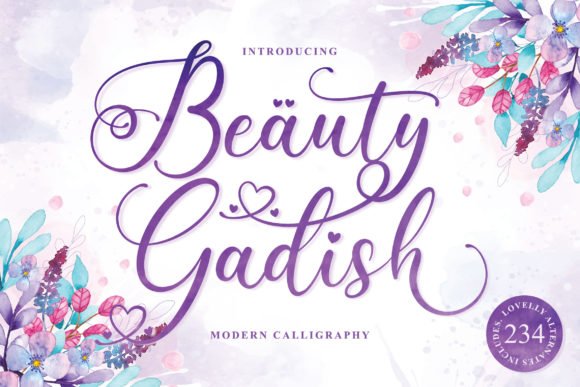
Unleashing the Magic of Beauty Gadish Font
There’s something special about discovering a font that speaks to your creative soul. The moment you stumble upon the perfect script, everything else fades away, and your imagination takes over. For me, that moment happened when I first laid eyes on the Beauty Gadish Font.
This lovely script font is more than just a pretty face – it’s a game-changer for designers looking to add a touch of luxury to their projects. With its beautiful swashes and elegant lines, Beauty Gadish Font is the perfect addition to any design. Whether you’re working on a wedding invitation, a branding project, or a blog post, this font is sure to elevate your design to the next level.
Beauty Gadish Font Key Features
- Font Family: Beauty Gadish
- Font Styles: Available in Regular and Bold
- Unique Characteristics: Hand-drawn design with a modern, elegant feel and a wide range of language support
Beauty Gadish Font Review
Overall, I think the Beauty Gadish Font is a great choice for designers who want to add a touch of elegance to their projects. ✨ The font’s unique blend of modern and vintage elements makes it a great fit for a wide range of designs, from fashion and beauty to home decor and lifestyle.
Here are some of the things that work well with the Beauty Gadish Font:
- ✨ Elegant and sophisticated feel: The font’s flowing lines and subtle flair make it perfect for adding a touch of luxury to your designs.
- ✨ Versatile: Whether you’re working on a fashion blog, a beauty product label, or a home decor brochure, the Beauty Gadish Font is a great choice.
- ✨ Easy to read: The font is clear and easy to read, making it a great choice for body text or headlines.
- ⚠️ Limited character set: While the font includes a wide range of characters, it’s not as comprehensive as some other fonts.
- ⚠️ May not be suitable for small text: Due to its elegant and flowing design, the Beauty Gadish Font may not be the best choice for small text or fine print.
Overall, I think the Beauty Gadish Font is a great addition to any designer’s toolkit. While it may have a few limitations, its unique blend of modern and vintage elements makes it a great choice for a wide range of designs.
For the most out of Beauty Gadish Font, use it for creative and artistic designs, such as fashion branding, beauty product labels, or wedding invitations. You can also use it for headings and titles to add a touch of elegance and sophistication to your designs. Experiment with different font sizes, colors, and styles to create unique and eye-catching designs.
Alternatives to Beauty Gadish Font
Great Vibes is a modern script font perfect for creating a playful and elegant look. It’s ideal for use in invitations, quotes, and other creative projects. Great Vibes has a more refined and polished look compared to Beauty Gadish Font, which can make it a better choice for professional designs.
Comparison: Great Vibes has a more elegant and refined look, while Beauty Gadish Font has a more casual and playful feel.
Carolyna Pro is a sophisticated and elegant script font suitable for high-end designs. It’s perfect for use in luxury branding, fashion, and editorial projects. Carolyna Pro has a more refined and sophisticated look compared to Beauty Gadish Font, which can make it a better choice for premium designs.
Comparison: Carolyna Pro has a more refined and sophisticated look, while Beauty Gadish Font has a more casual and playful feel.
Alex Brush is a beautiful and elegant script font perfect for creating a romantic and whimsical look. It’s ideal for use in wedding invitations, quotes, and other creative projects. Alex Brush has a more delicate and feminine look compared to Beauty Gadish Font, which can make it a better choice for designs that require a softer touch.